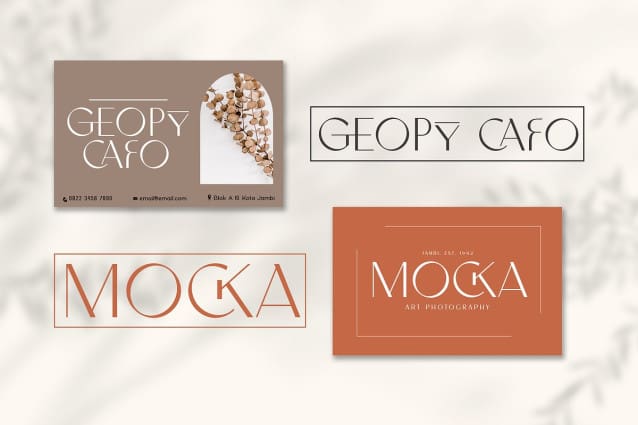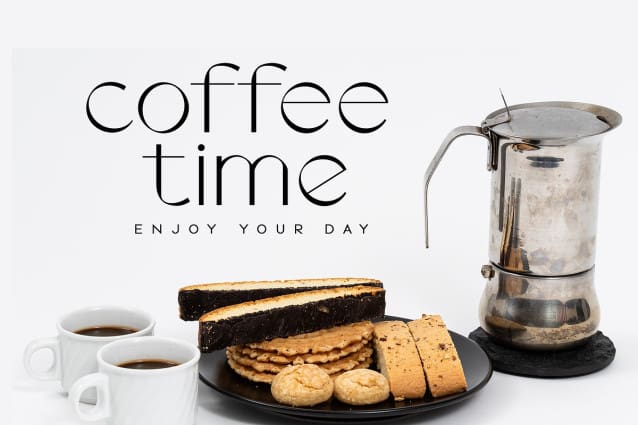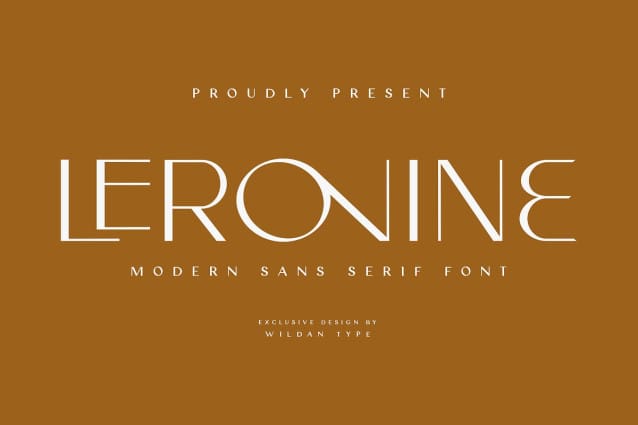
Leronine Font
Leronine Font is an elegant, modern and contrast sans-serif font. It includes upright and Oblique style. This is perfect for any project, it is contrasted, modern and easy to read. With it, you can create logos, use in advertising, packaging, book covers and magazines, headings, descriptions and much more.
Leronine Font includes stylistic alternates and ligature. with them, you can change the style of your project and add personality to it and make it more stylized.